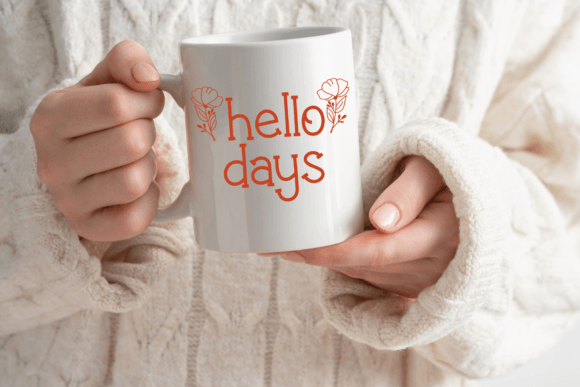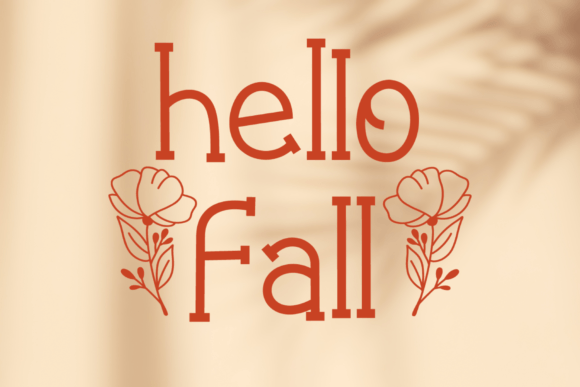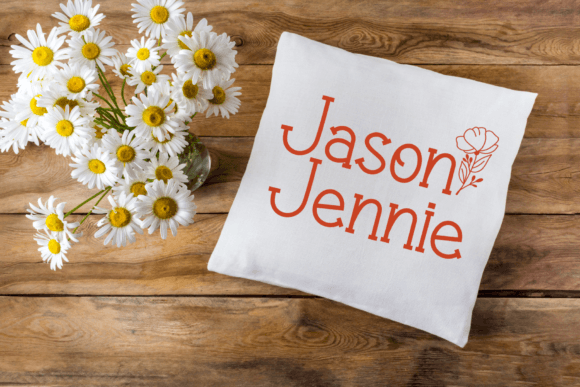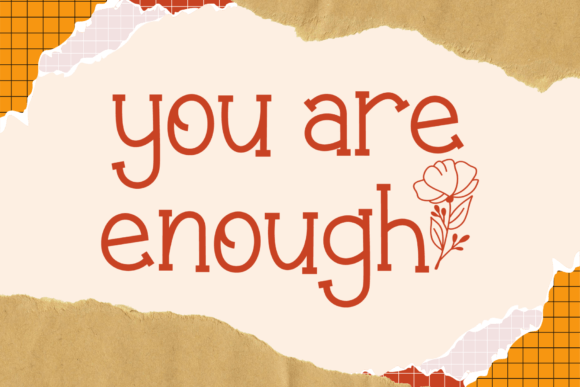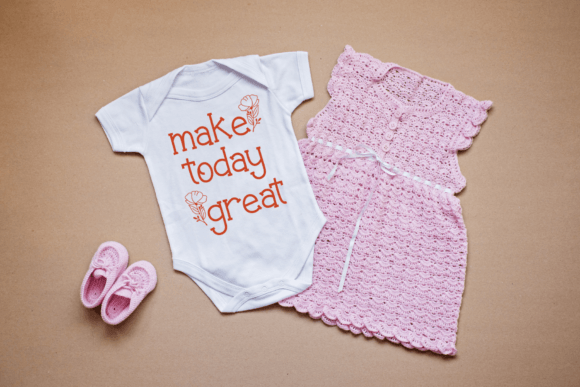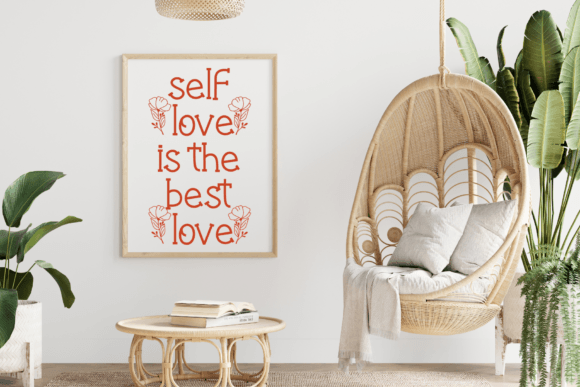
The Sweet Charm of Flower Park Font: A Designer’s Delight
I’ll never forget the time I was working on a project for a client’s autumn-themed wedding invitation. I had all the design elements in place – the warm color palette, the cozy textures, and the beautiful floral arrangements. But something was missing. That’s when I realized I needed the perfect font to tie everything together. After hours of searching, I stumbled upon Flower Park Font, and it was love at first sight! 💕
Flower Park is a sweet and playful slab serif font that has become a staple in my design toolkit. Its unique blend of rustic charm and modern flair makes it perfect for a wide range of creative projects, from floral designs to nature-themed illustrations. In this article, I’ll share my honest review of Flower Park Font, provide a practical guide on how to use it, and explore similar fonts that you might enjoy.
The Good: ✨
- Unique and playful slab serif design that adds a touch of whimsy to any project
- Perfect for autumn-themed designs, floral arrangements, and nature-inspired illustrations
- Works well in a variety of contexts, from digital designs to print materials
- Easy to read and understand, even in smaller font sizes
- Supports a wide range of languages and OpenType features
The Not-So-Good: 🤔
- May not be the best fit for very formal or traditional designs
- Some users may find the font a bit too playful or childish for their taste
- Limited availability of stylistic alternates and glyphs (but still a great selection!) ⚠️
The Story Behind Flower Park Font
Flower Park Font was designed with the intention of capturing the whimsical and playful spirit of a stroll through a flower park on a warm summer day. The designer aimed to create a font that would evoke feelings of joy, happiness, and carefree-ness. With its unique blend of rustic and modern elements, Flower Park Font is sure to bring a touch of personality to any design project.
Q: What is Flower Park Font best used for?
A: Flower Park Font is perfect for autumn-themed designs, floral arrangements, and nature-inspired illustrations. It’s also great for adding a touch of whimsy to any design project.
Q: Is Flower Park Font easy to read?
A: Yes, Flower Park Font is designed to be easy to read and understand, even in smaller font sizes.